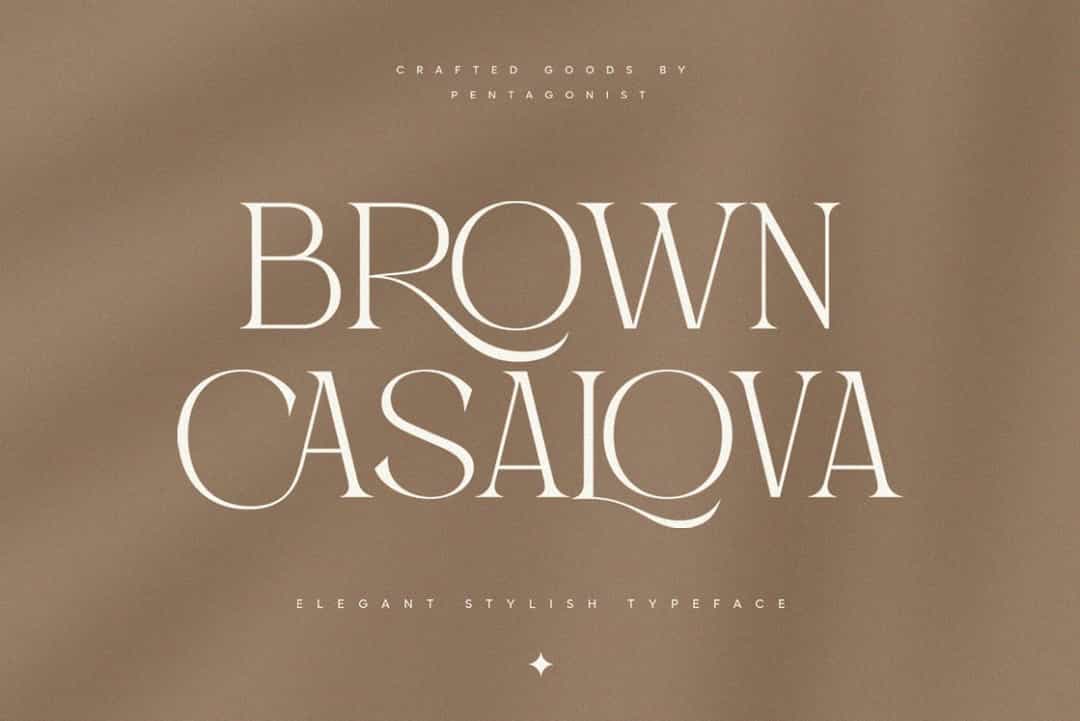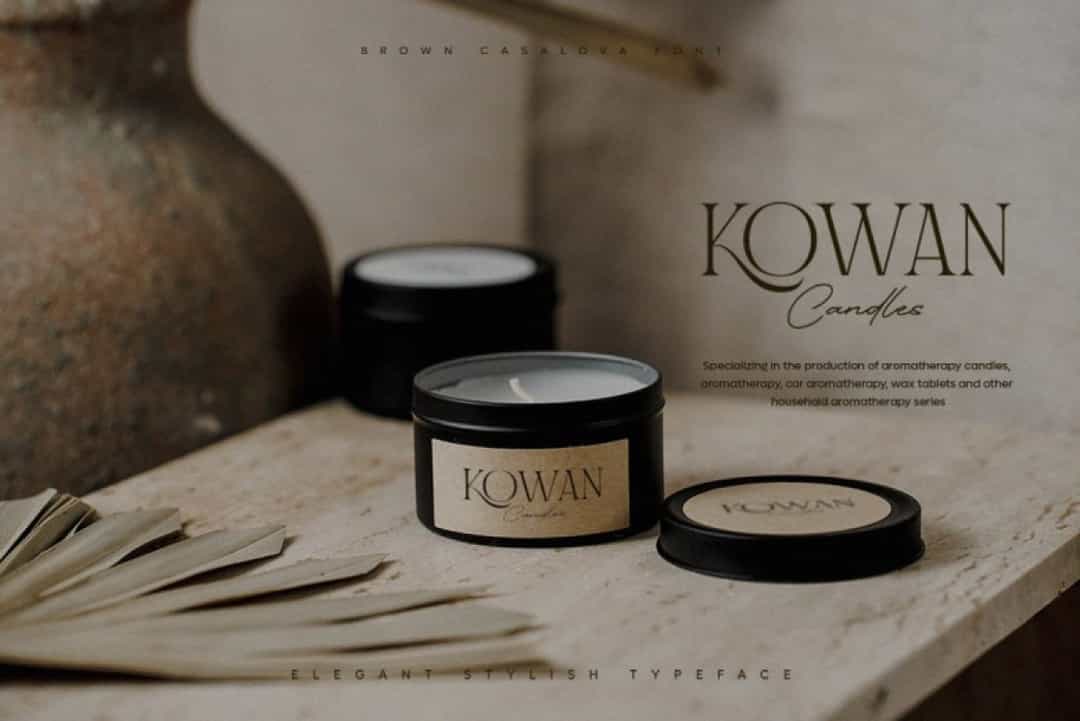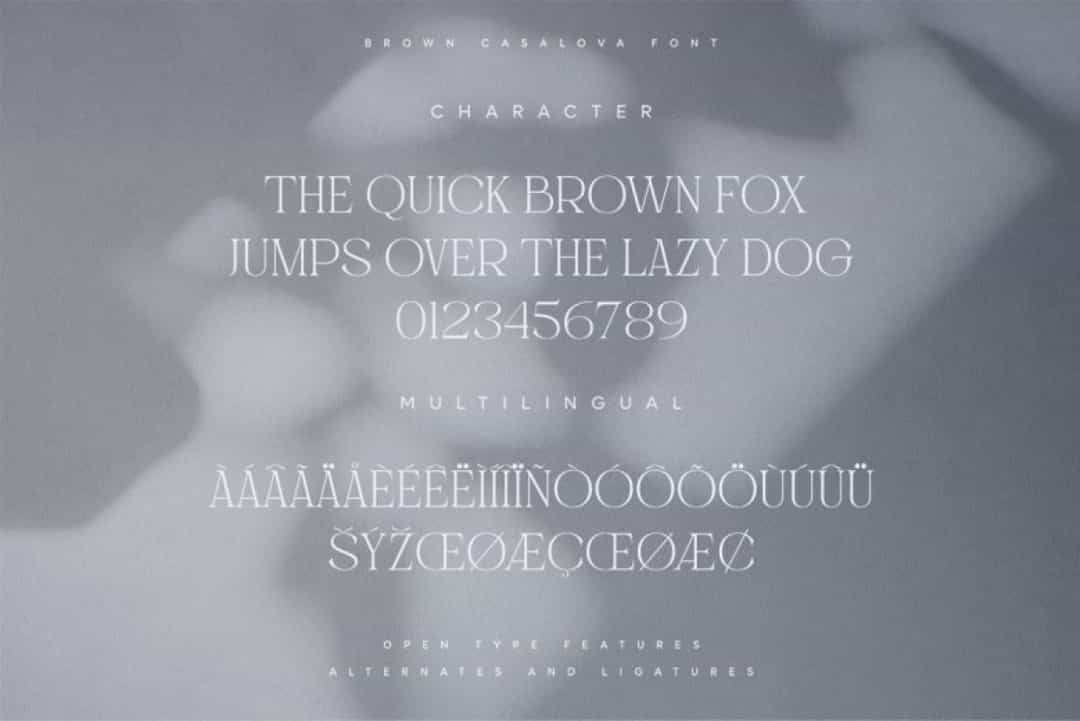
Discover Brown Casalova Font, part of the Serif collection—a versatile and unique font perfect for adding a personal touch to your projects. Download it for free and enjoy crafting designs with style, from invitations to social media posts. This font is available exclusively for personal use, giving you the freedom to create without limits. Unlock your creativity with Brown Casalova Font today!
Brown Casalova is an elegant and sophisticated serif font. Perfect for creating eye-catching logos, branding materials and quotes – every letter features its own distinct and gorgeous aesthetic! Plus it’s PUA encoded so you have easy access to all its characters and ligatures!